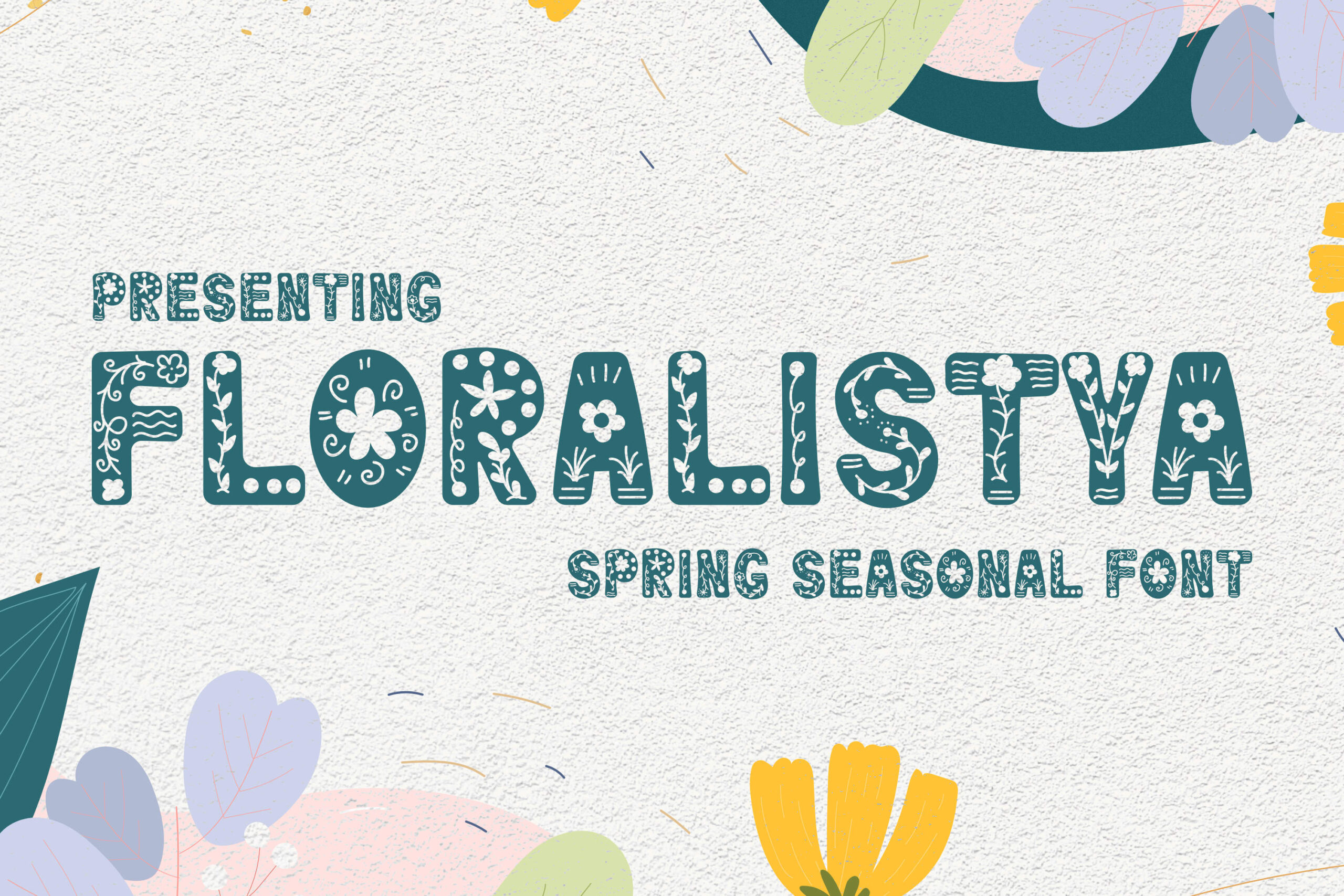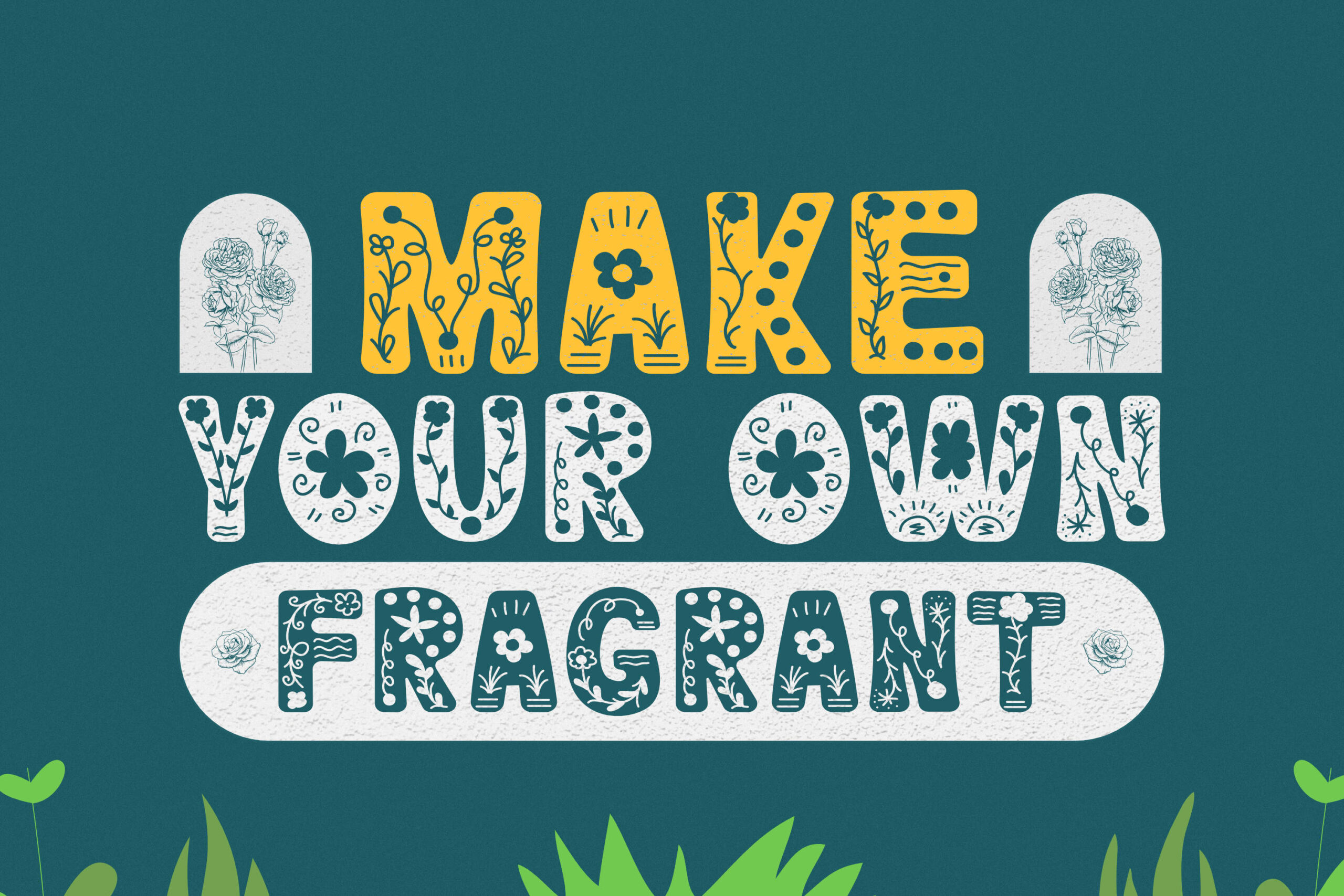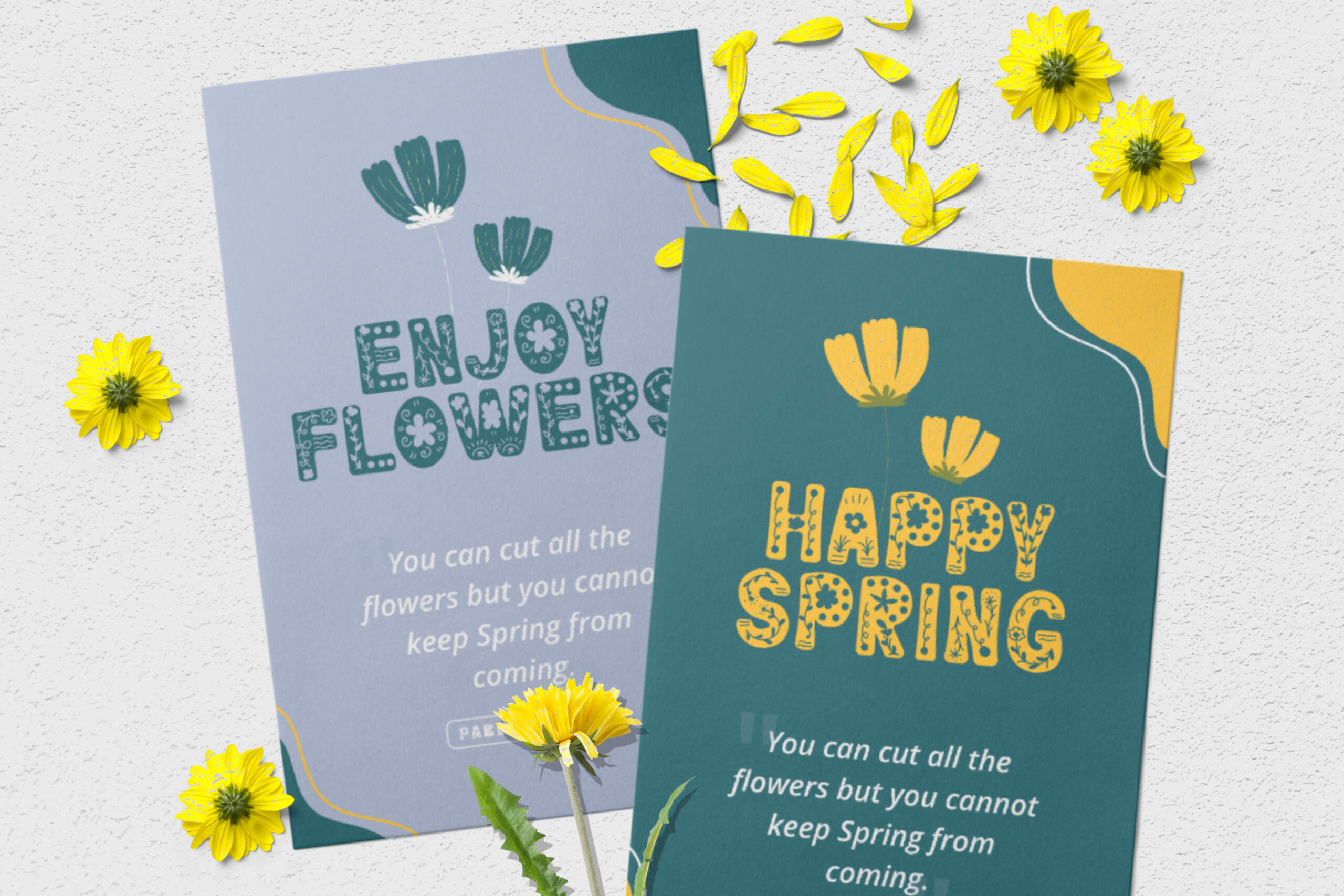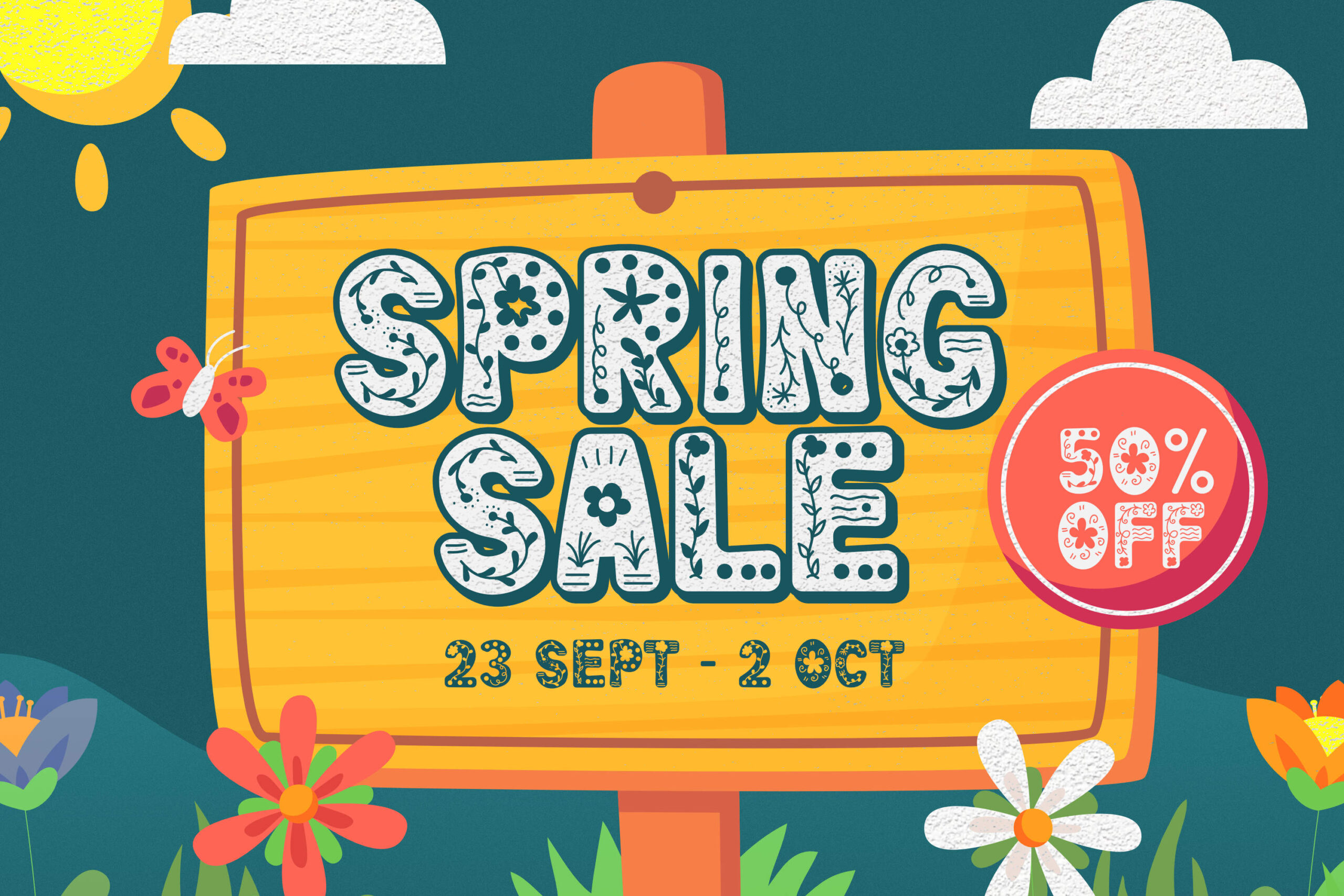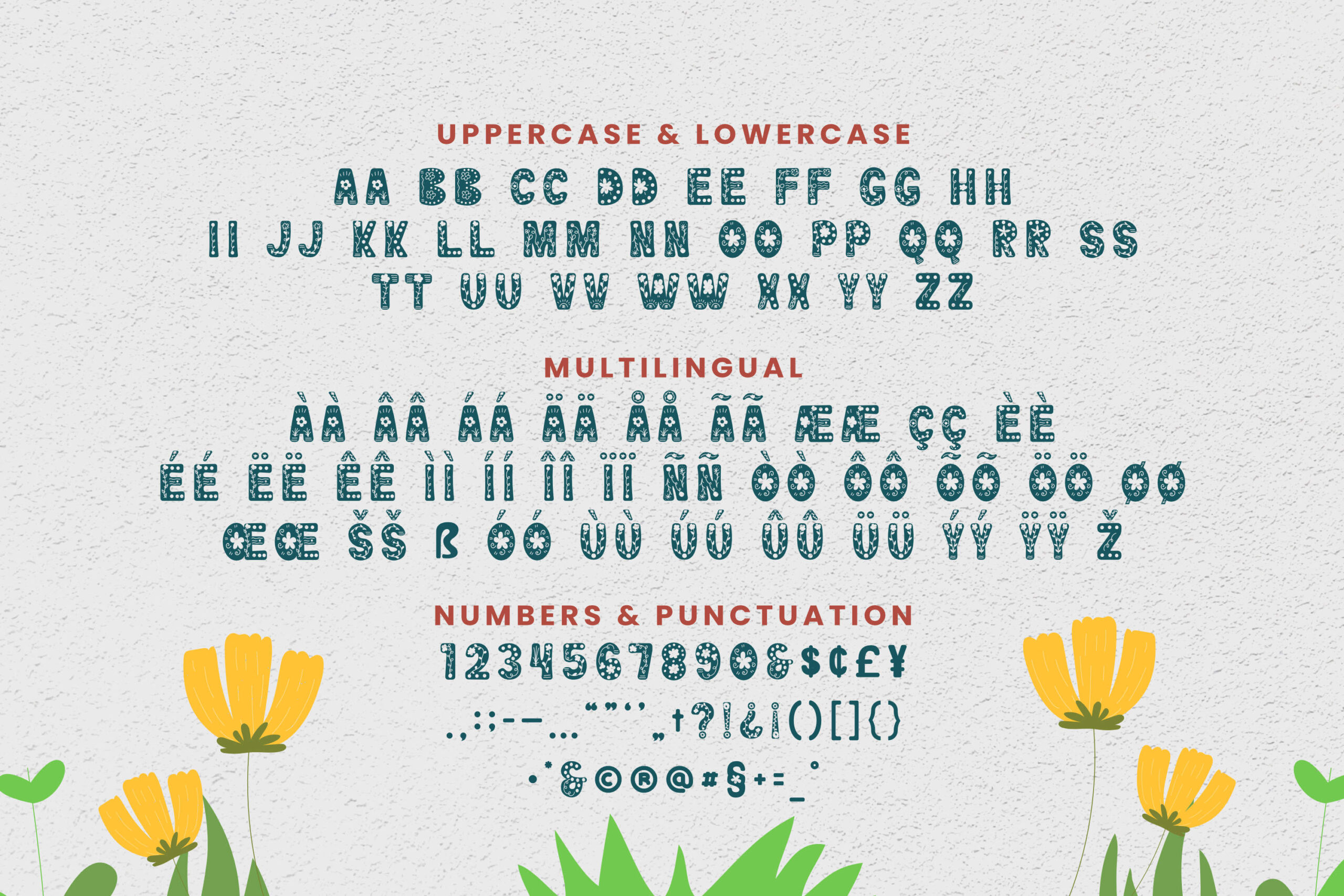
Floralistya is a whimsical and decorative display font that brings the essence of spring into your designs. Each character is filled with delightful floral elements, making it perfect for projects that need a touch of freshness and playfulness. With its hand-drawn look and lively personality, Floralistya is a charming choice for seasonal campaigns, children’s designs, greeting cards, or any creative work that celebrates nature and joy.
This font comes with full uppercase and lowercase support, multilingual characters, numerals, and punctuation. Ensuring usability across various design needs. Whether you’re working on spring sale promotions, floral-themed branding, or fun posters, Floralistya will help your message bloom beautifully with its cheerful and organic aesthetic.